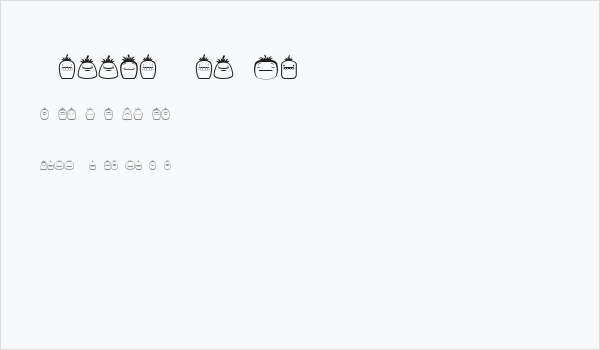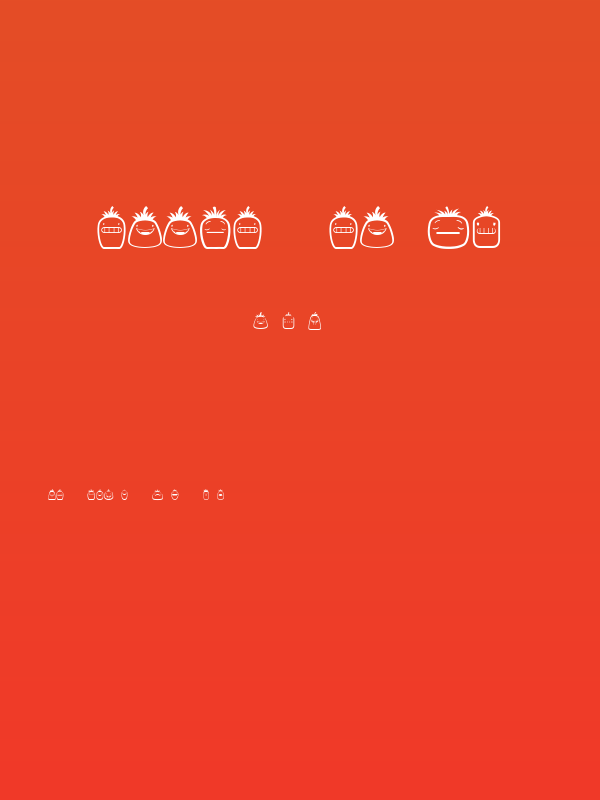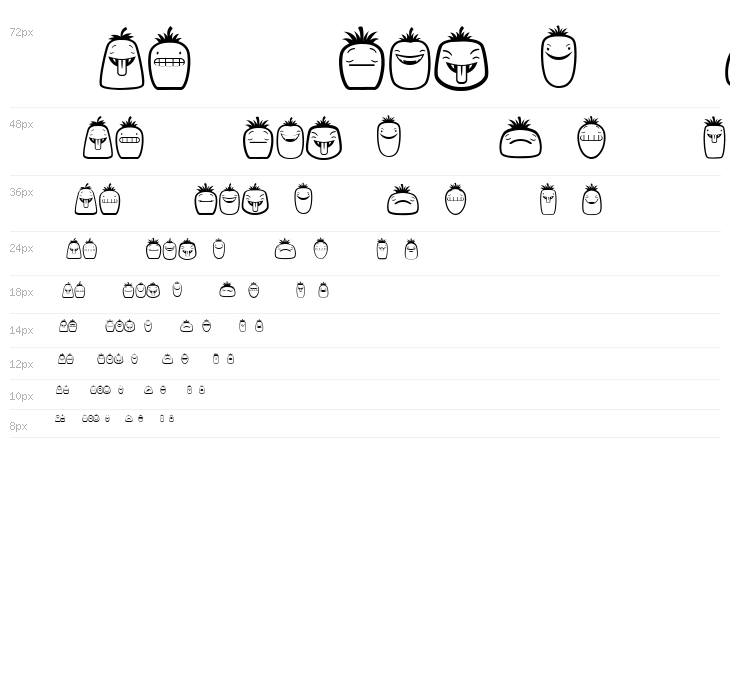
Veggie Regular Font
Veggie Regular Description
This is not a traditional font but rather a collection of playful, cartoonish characters with expressive faces. Each character is unique, featuring different facial expressions and hairstyles, giving them a lively and whimsical appearance. The design is highly decorative, focusing on creativity and humor rather than readability or traditional typography. These characters are more akin to illustrations or emoticons, designed to convey emotion and personality.
| Use Case | Decorative elements, Illustrations |
| Proposed Projects | Ideal for children's books, playful branding, or as decorative elements in creative projects. |